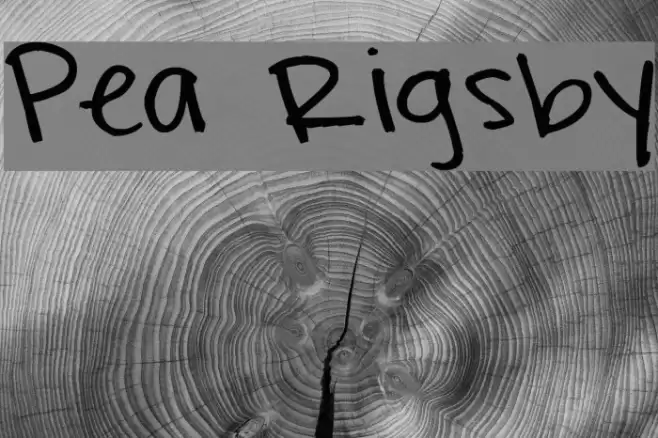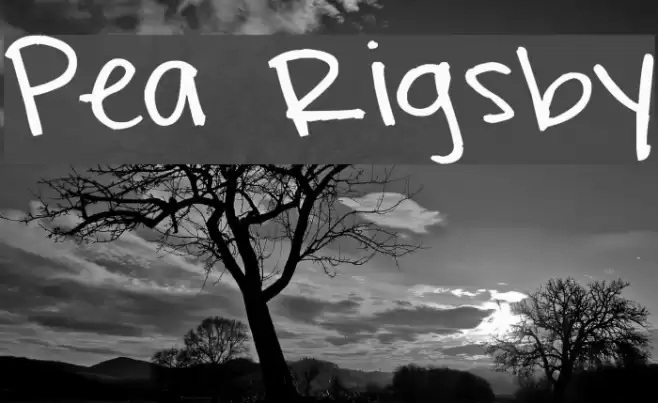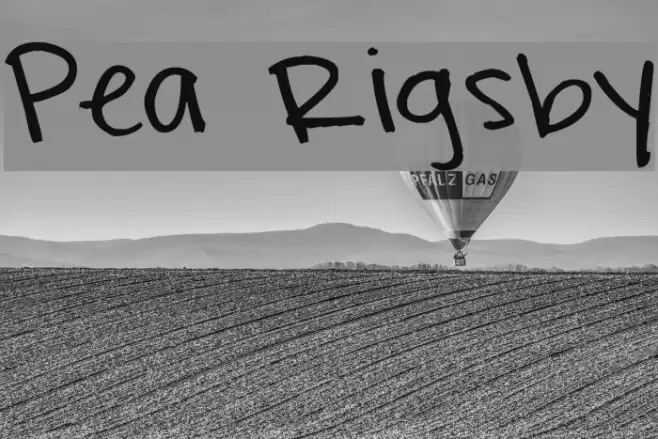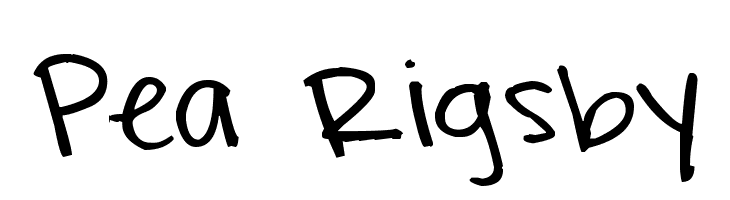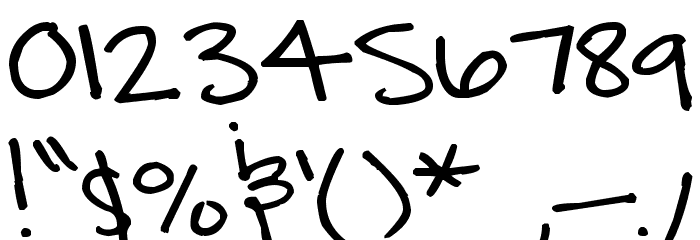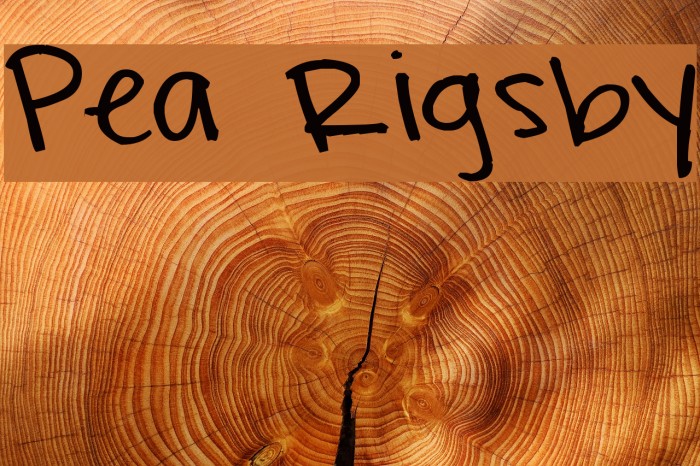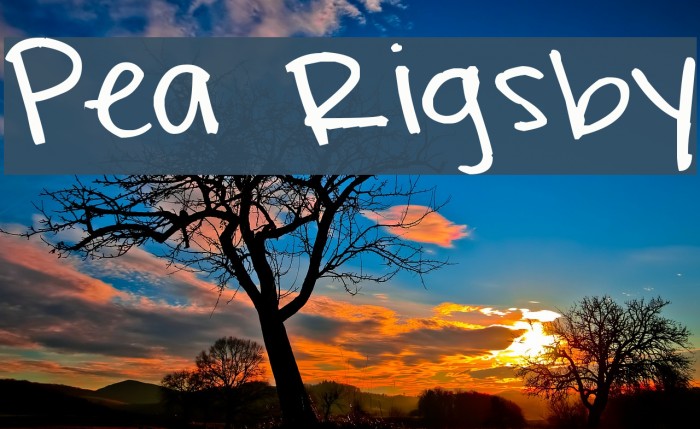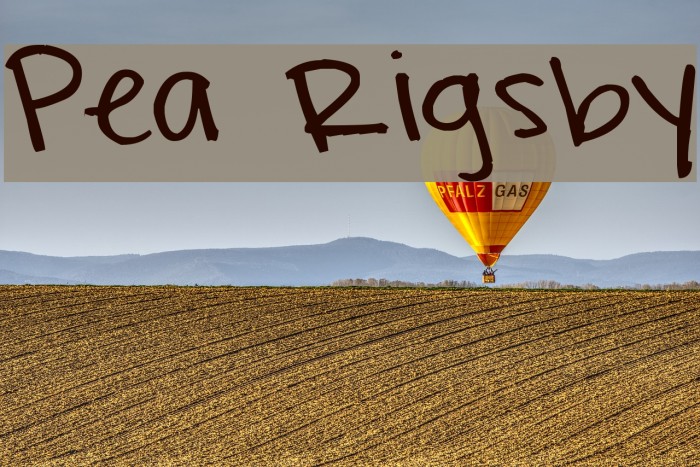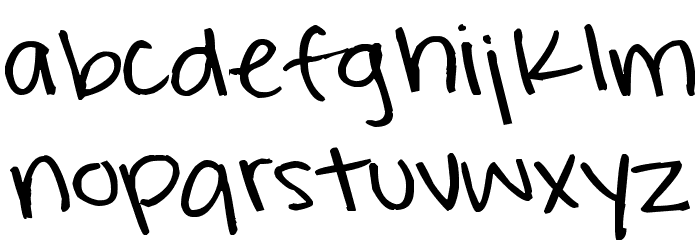
Pea Rigsby Font
Pea Rigsby Description
This playful and casual handwritten font features a relaxed and informal style, characterized by its uneven strokes and slightly tilted characters. The letters are free-flowing and organic, giving a sense of spontaneity and creativity. The uppercase and lowercase letters maintain a consistent style, with rounded edges and a slight slant that adds to the font's approachable and friendly appearance. The numbers and special characters follow the same aesthetic, ensuring a cohesive look across all text elements.
A playful and casual handwritten font with a relaxed, informal style from Uncategorized fonts.
- Overall Style: Casual